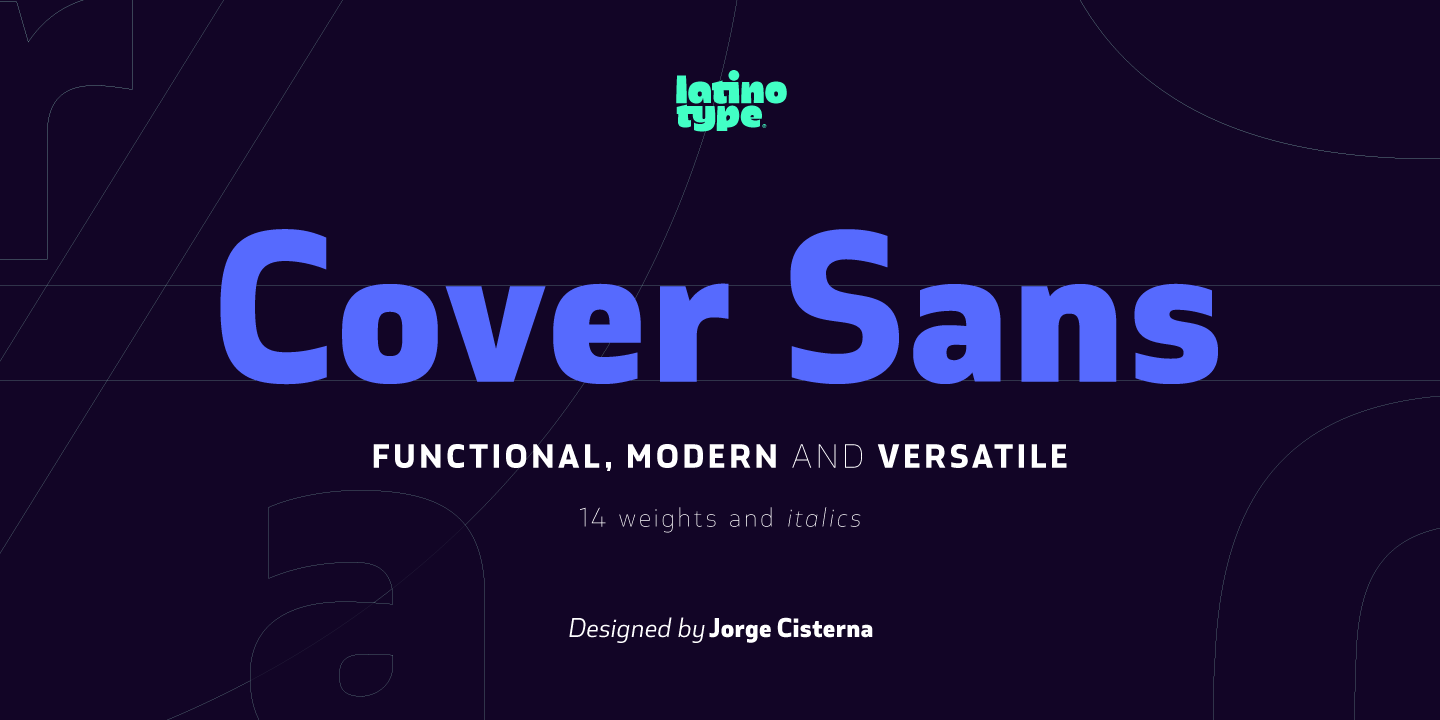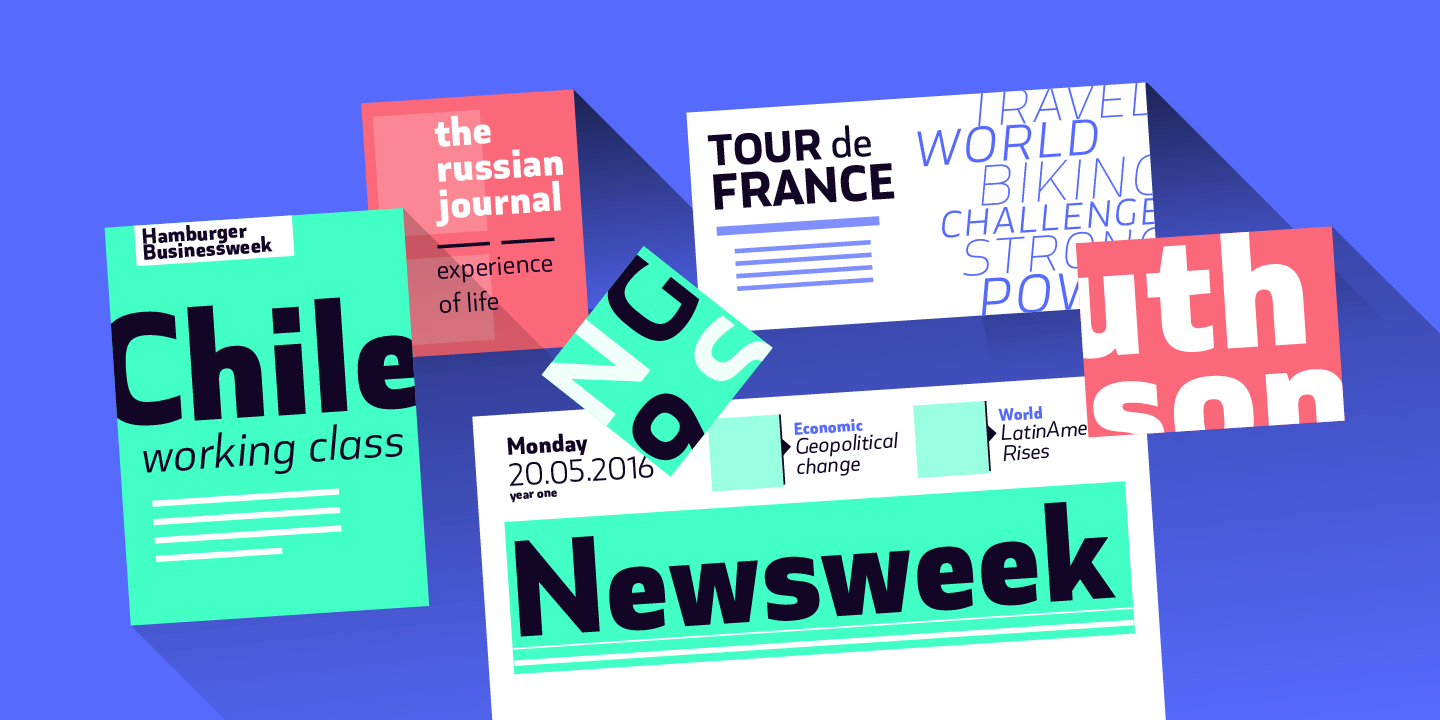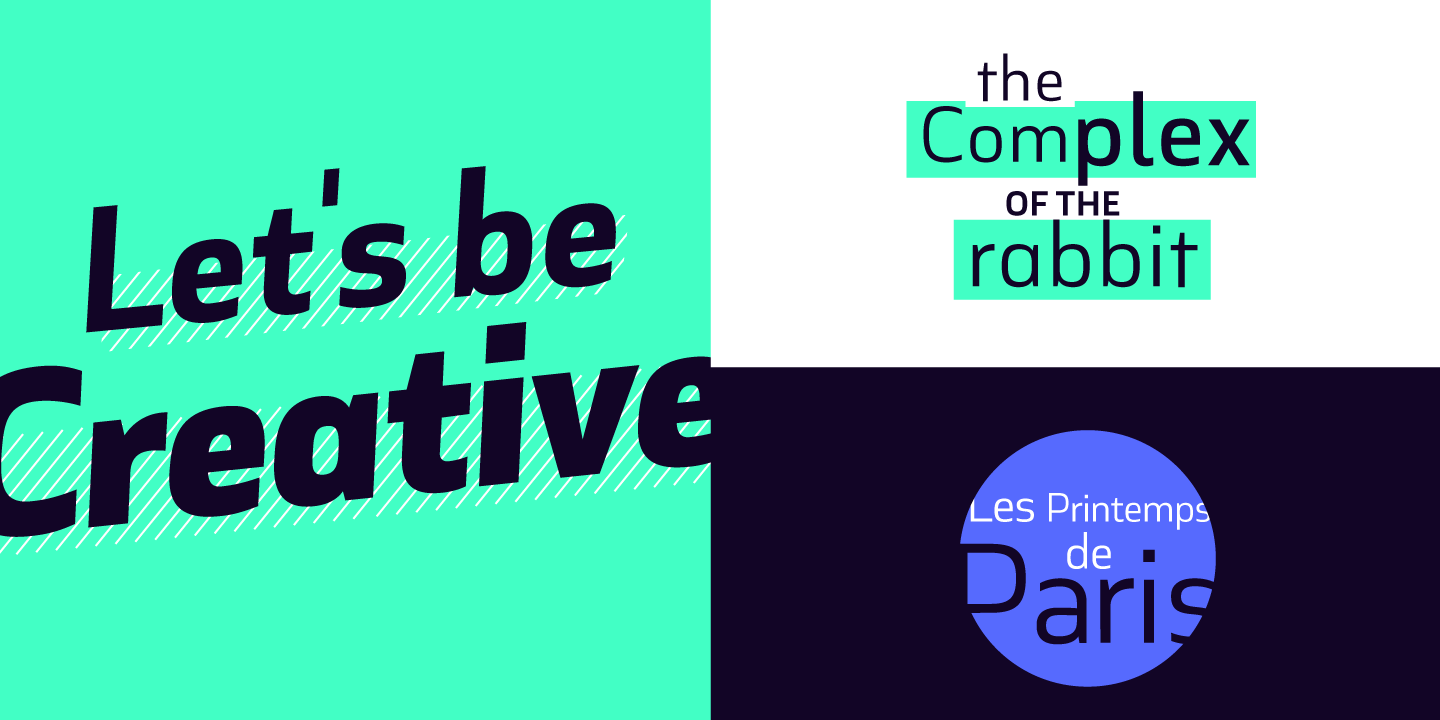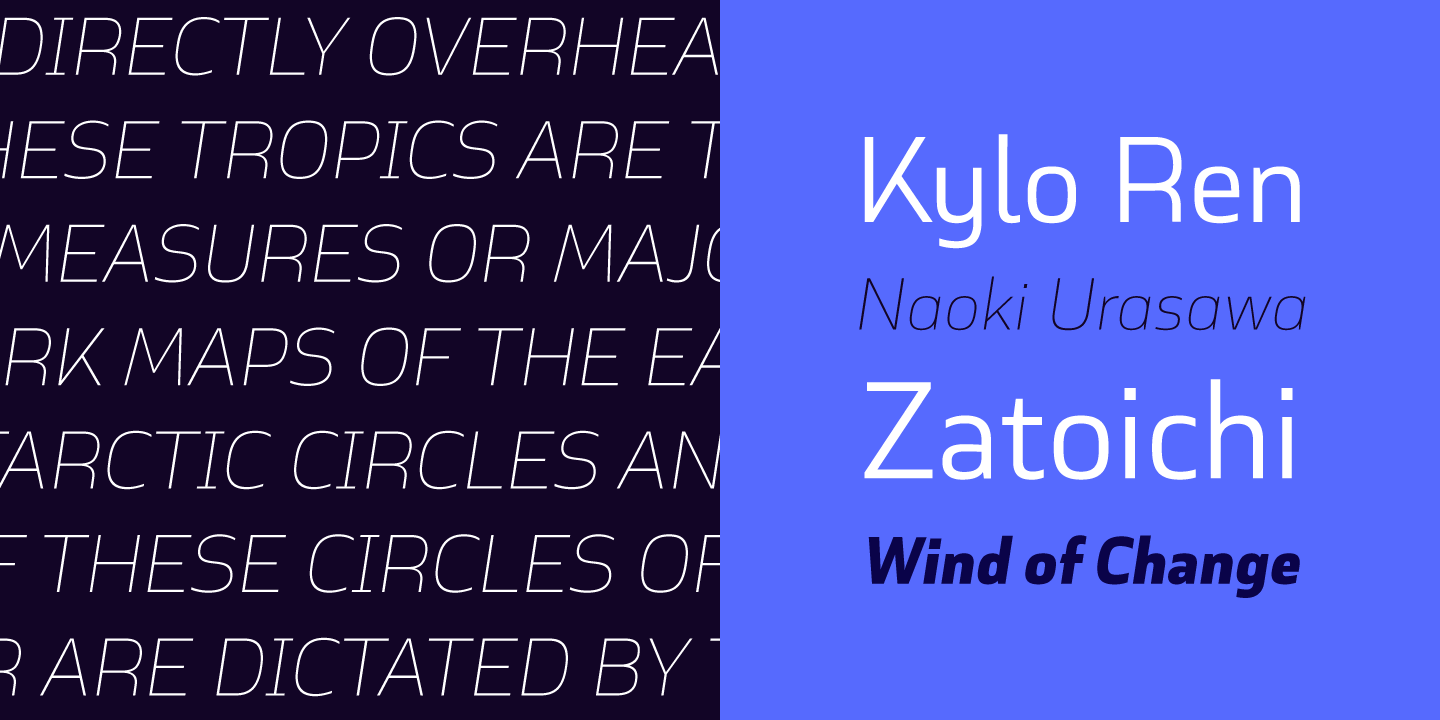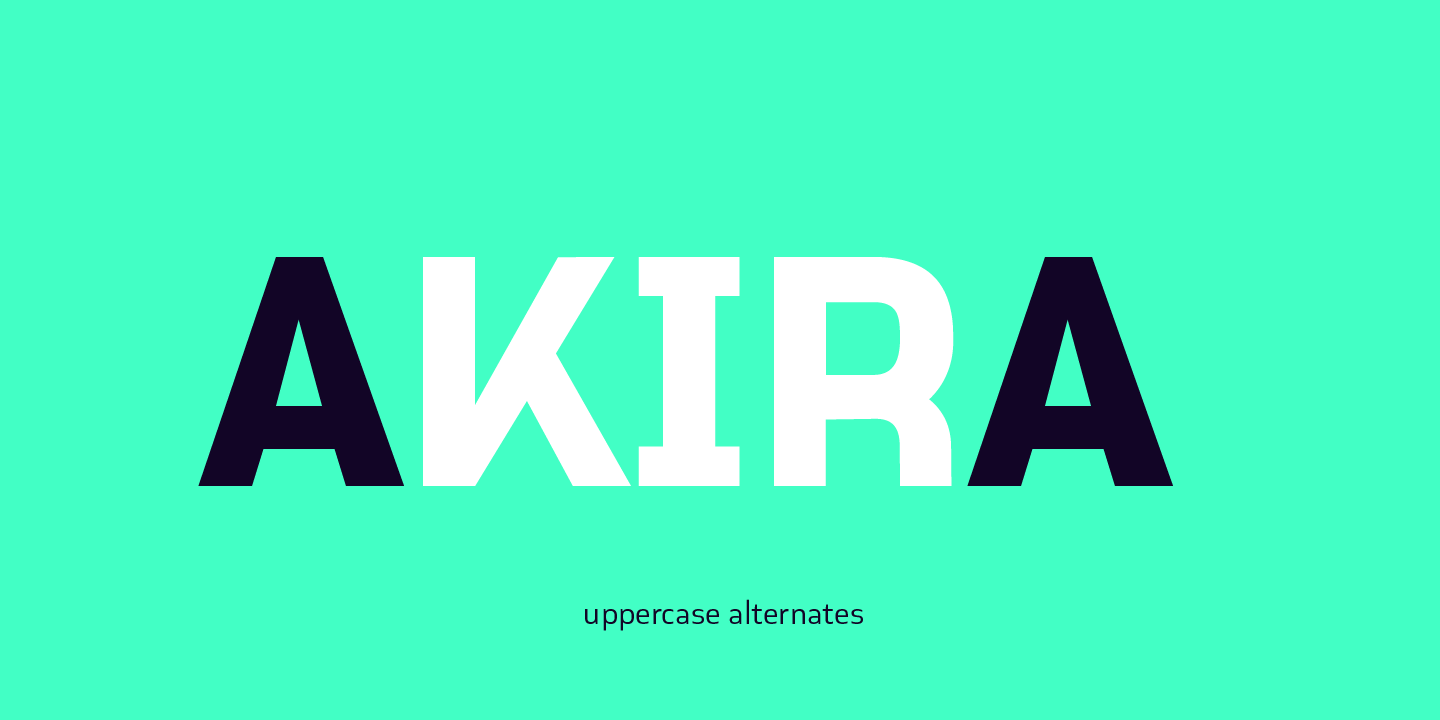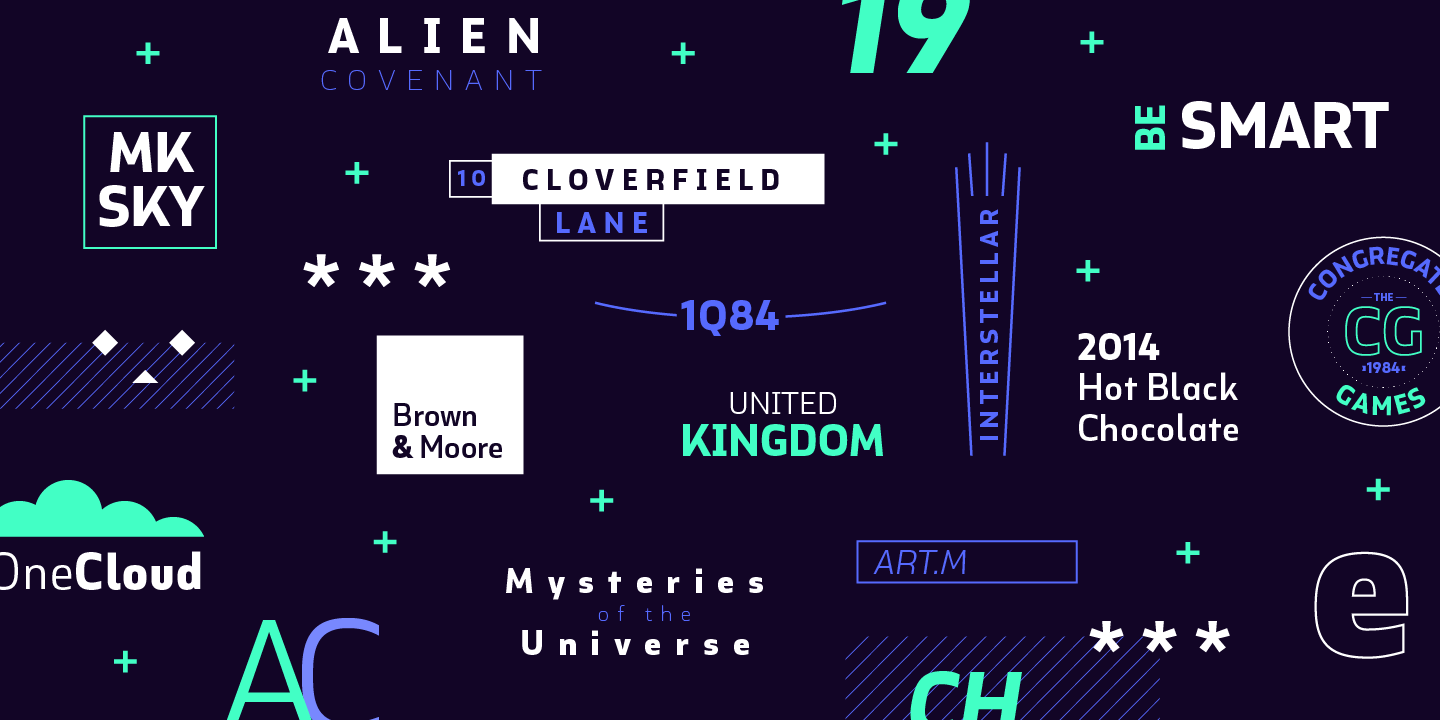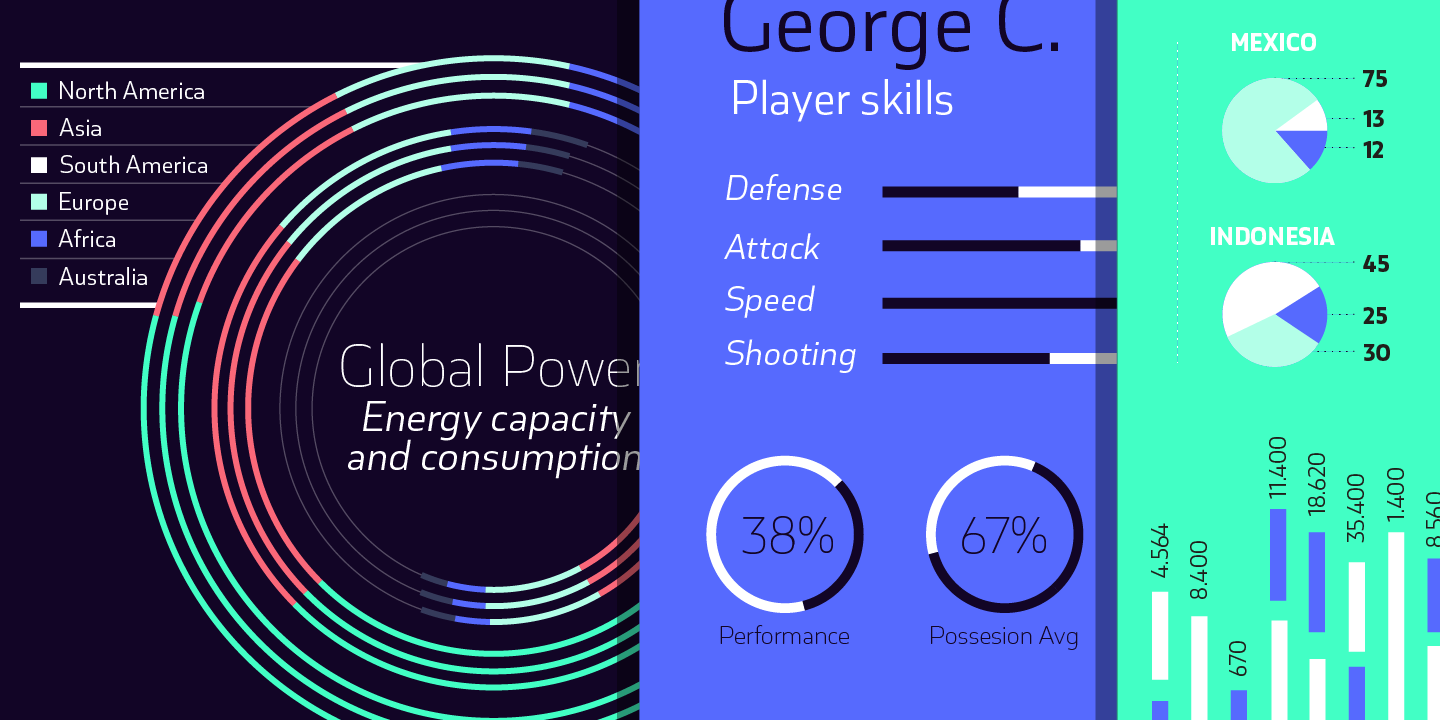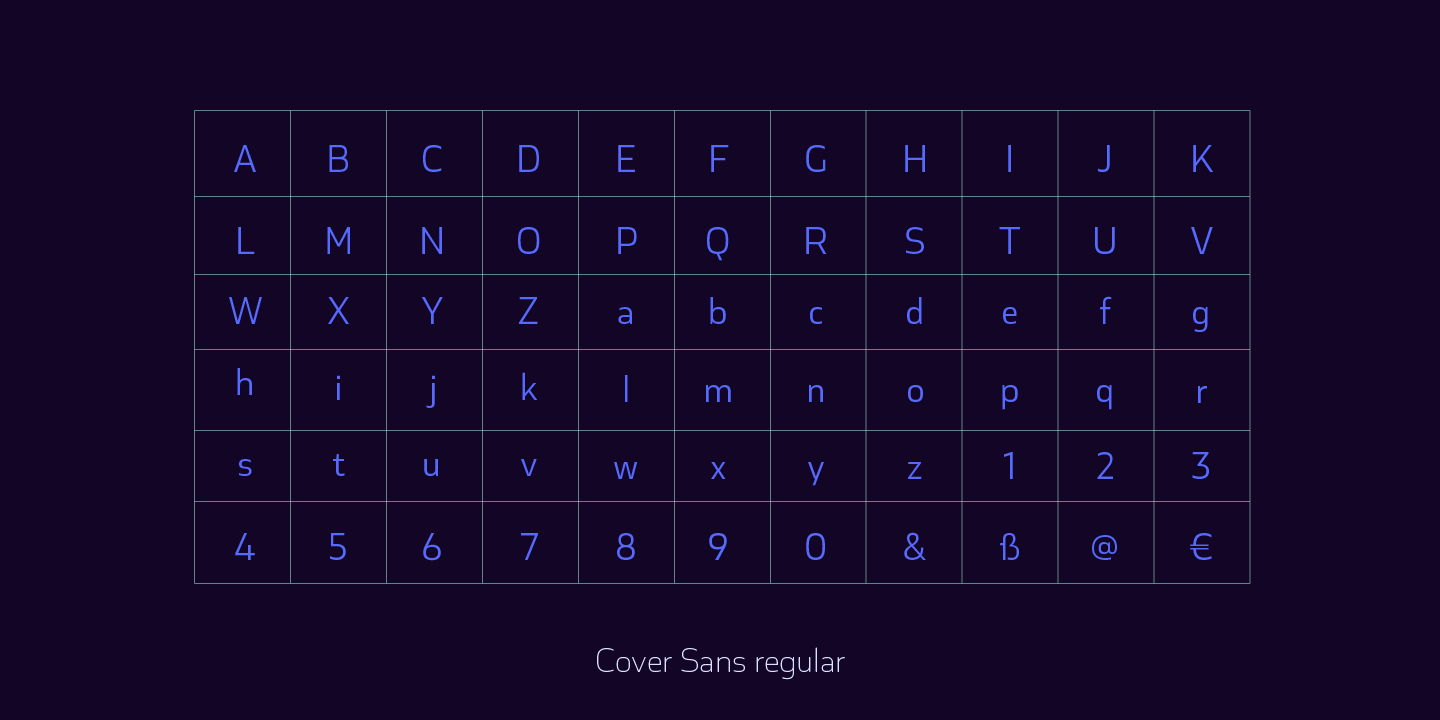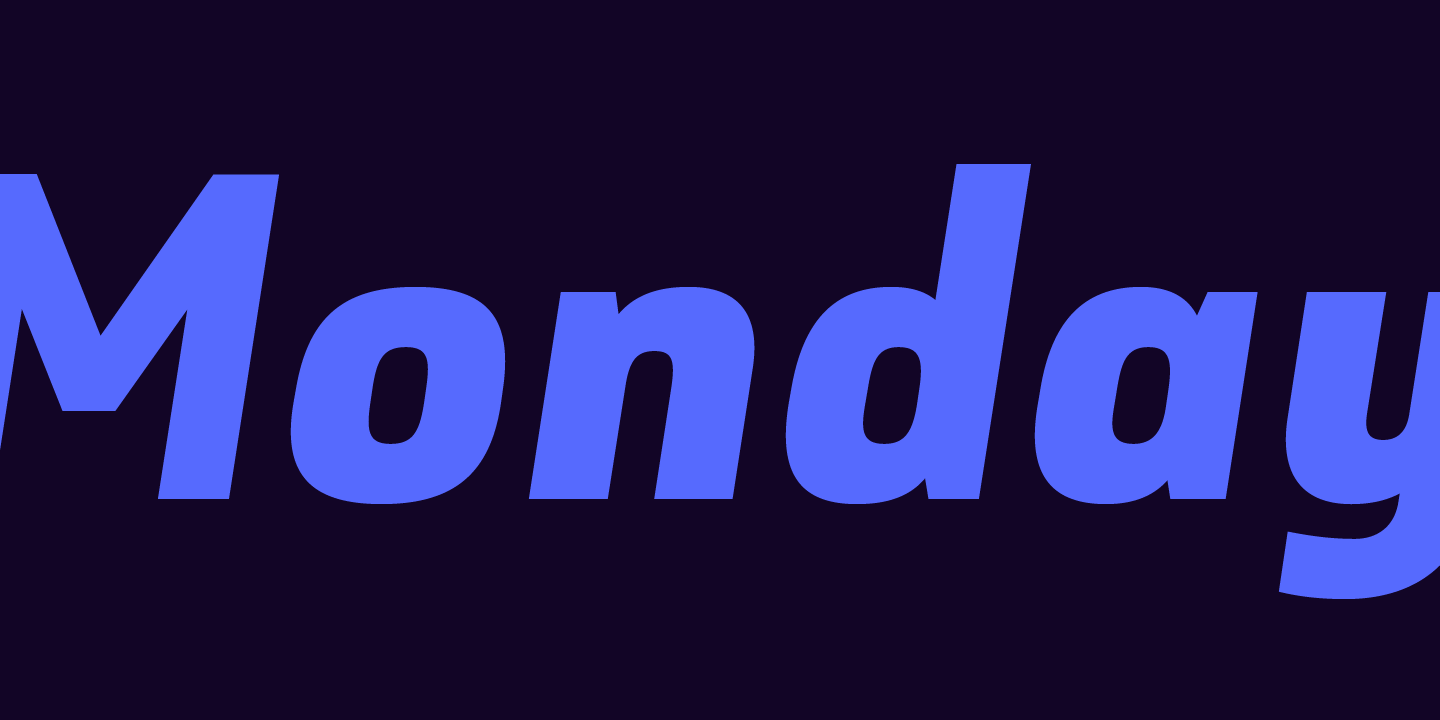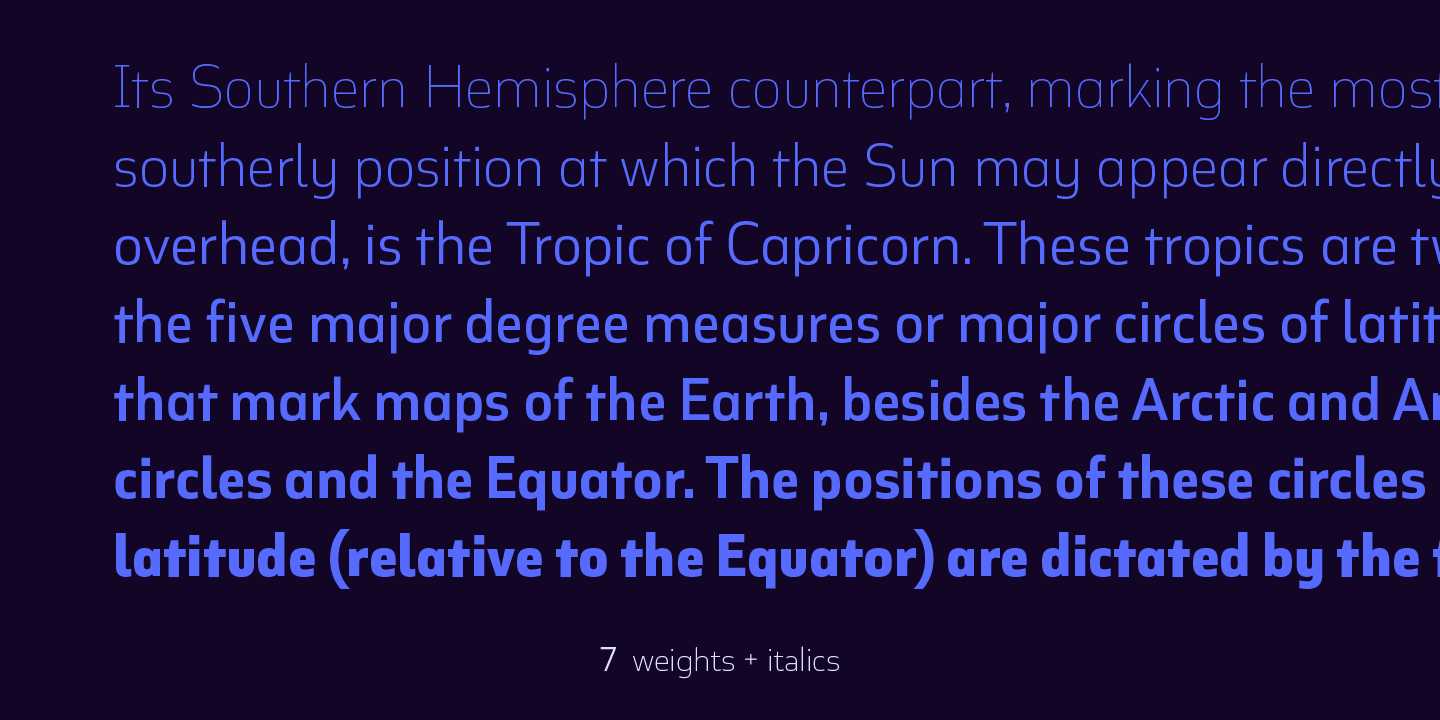
Cover Sans Family (14 fonts)
Cover Sans is a stable and strong condensed font that works well for magazines and publishing. The strong personality of its alternative characters gives the font a modern and elegant style, which makes it ideal for use on annual reports as well as on business logotypes.
Old-style Digits, Ligatures, Alternates